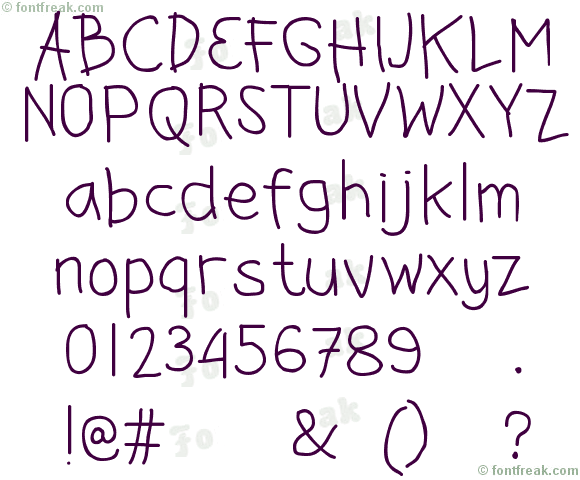
Jangan Bersedih
The Jangan Bersedih font, created by Adien Gunarta, is a delightful handwritten style that embodies a playful and casual charm. This font features a light stroke weight with a gentle contrast that adds a friendly feel to any text. The characters are generously spaced, allowing for easy readability, while the subtle curves and variations in line thickness lend a unique personality to the design. Decorative elements are minimal, ensuring that the focus remains on the whimsical nature of the font itself.
Ideal for a variety of creative projects, the Jangan Bersedih font excels in use cases such as wedding invitations, where its informal touch can convey warmth and joy. It is also perfect for children's book covers, bringing a sense of fun and imagination to the pages. Additionally, small business owners can utilize this font for branding materials, including café menus and promotional flyers, to create an inviting atmosphere. Content creators, especially those focused on social media, will find it suitable for crafting eye-catching posts that resonate with their audience.
The target audience for the Jangan Bersedih font includes graphic designers, small business owners, and content creators who appreciate a personal touch in their typography. This font is especially appealing to those looking to evoke emotions and create a sense of connection with their audience.